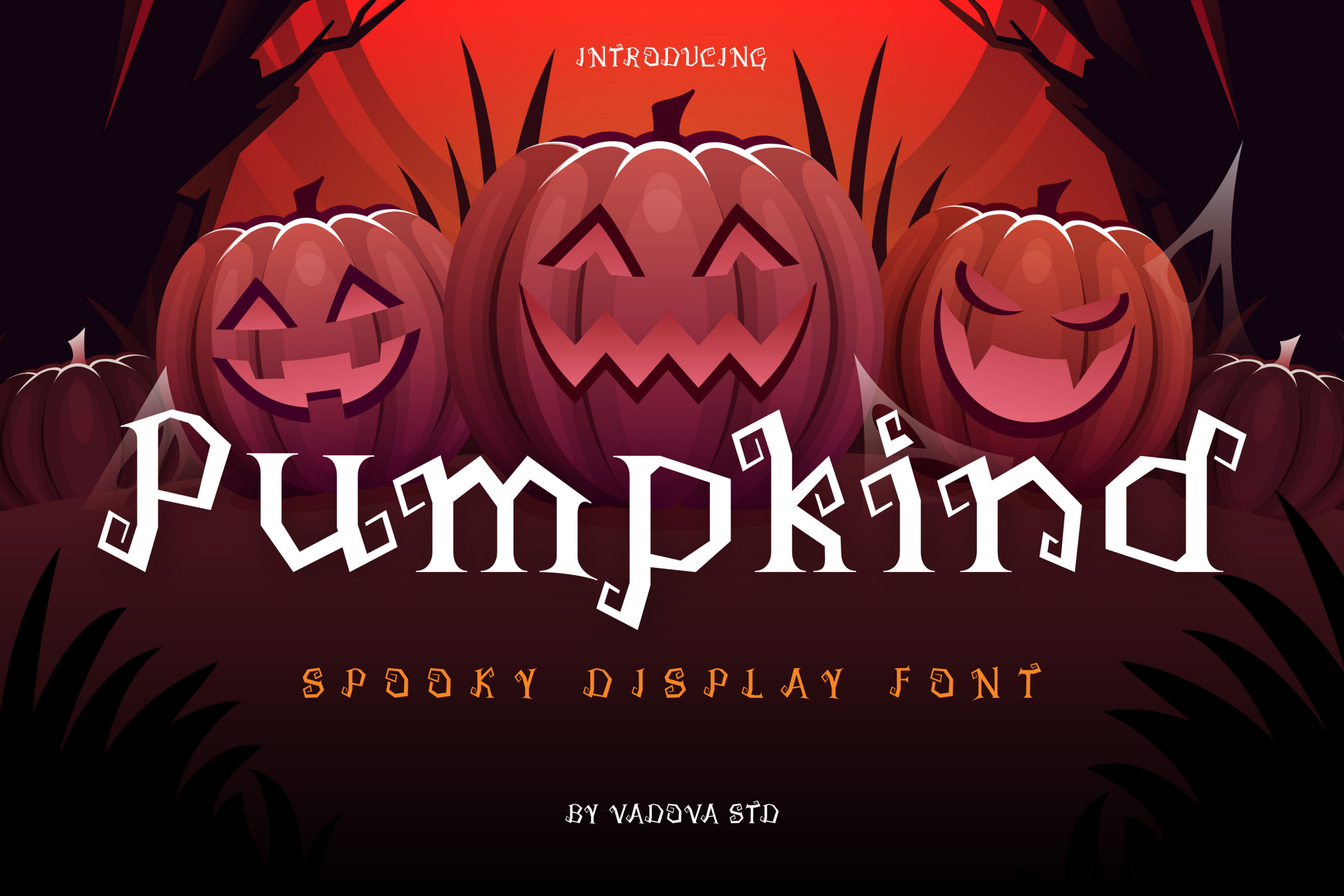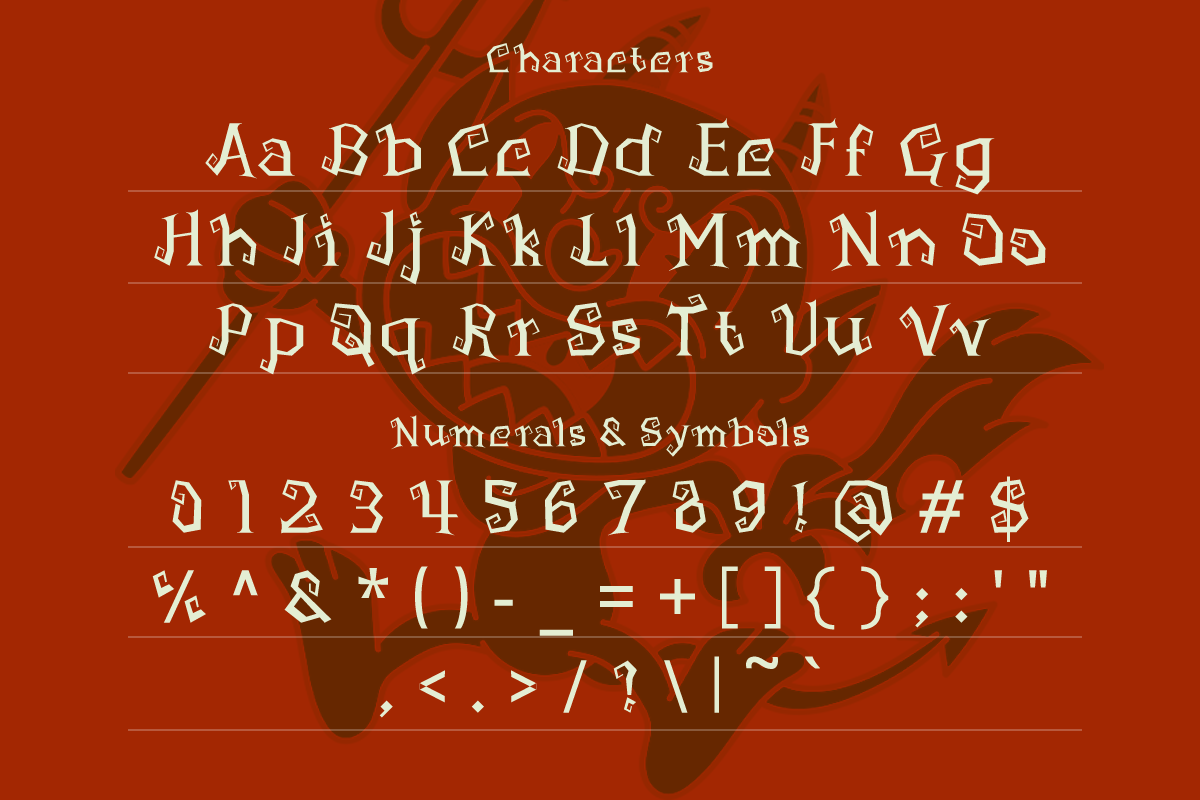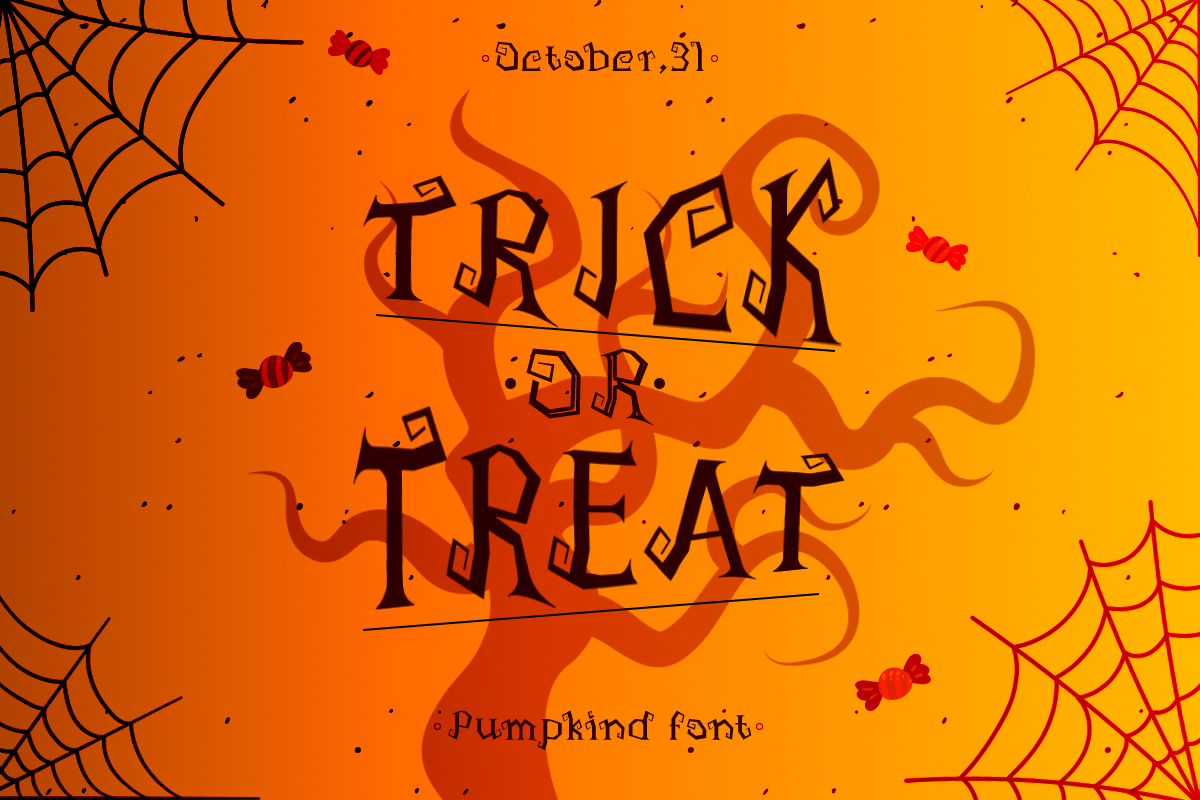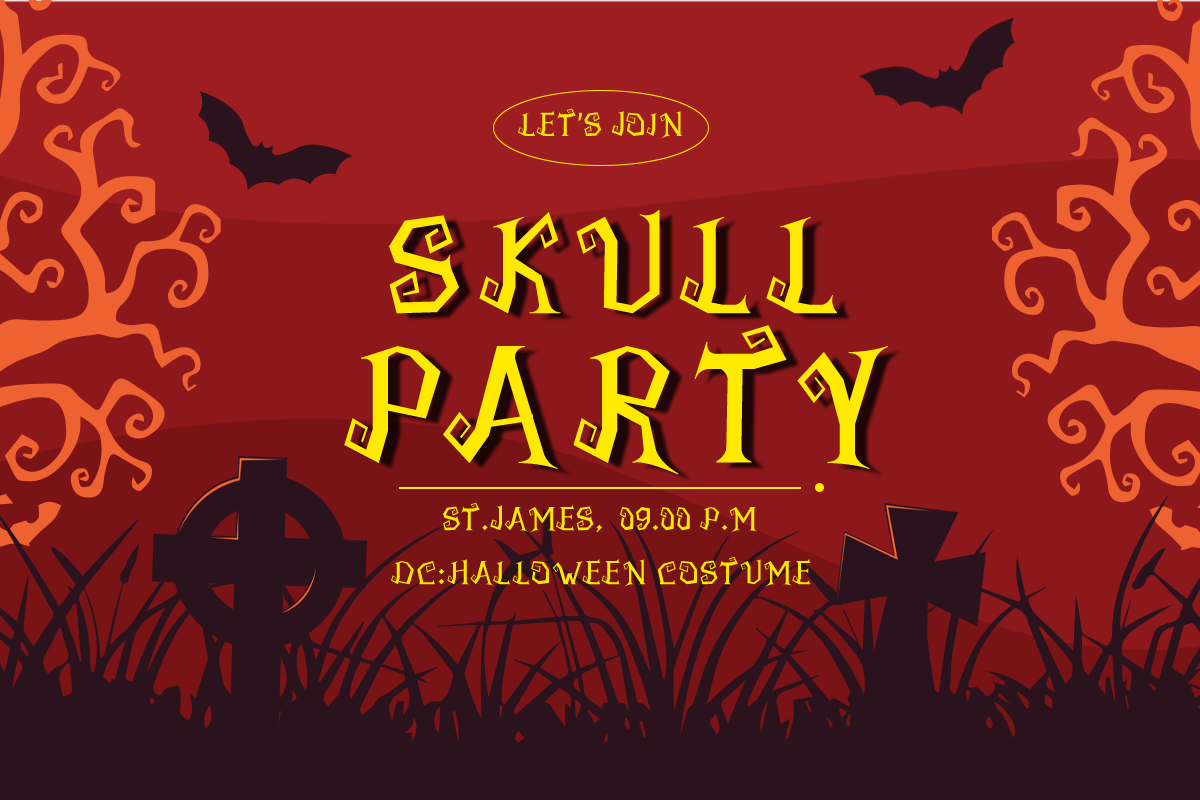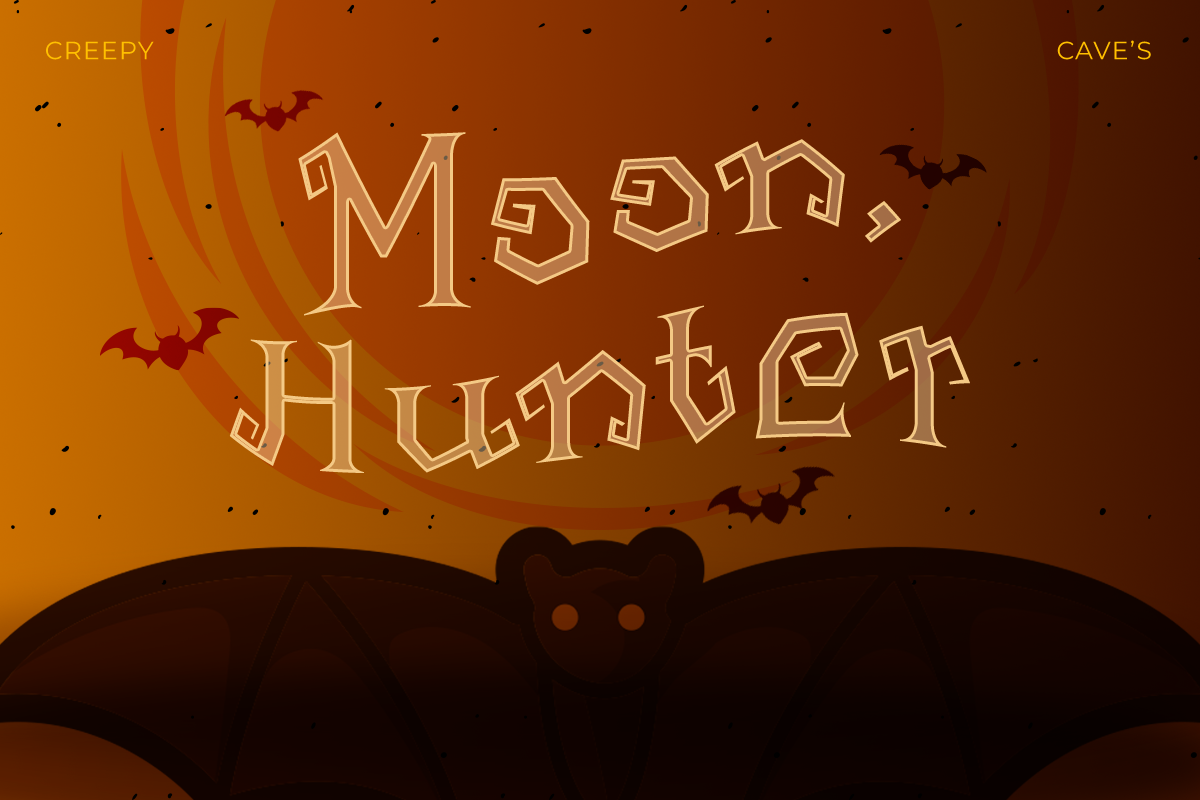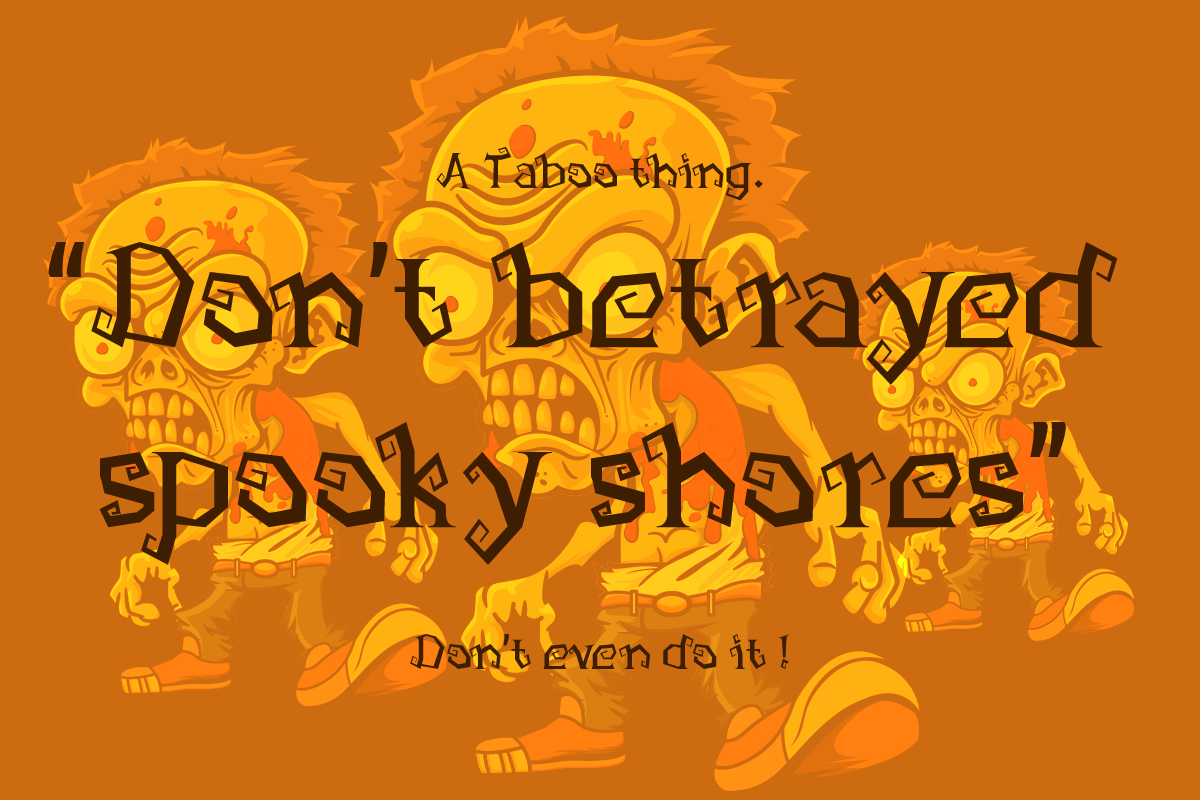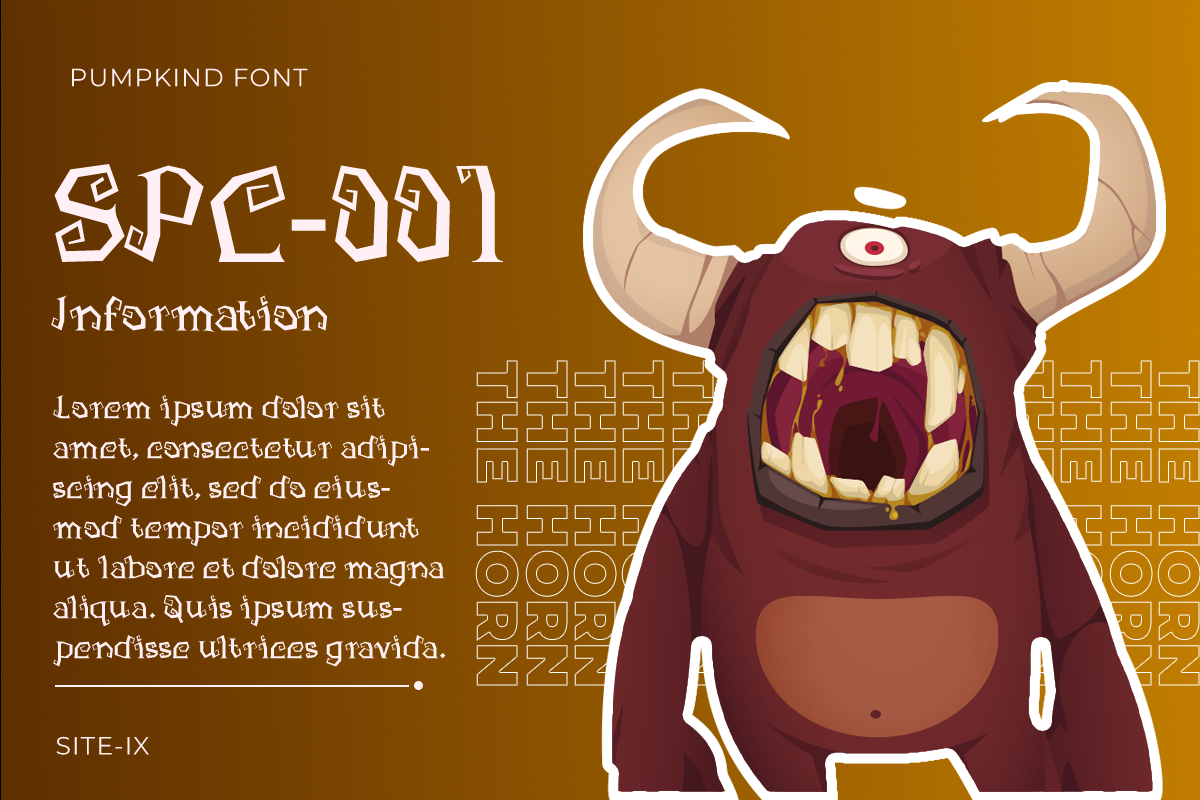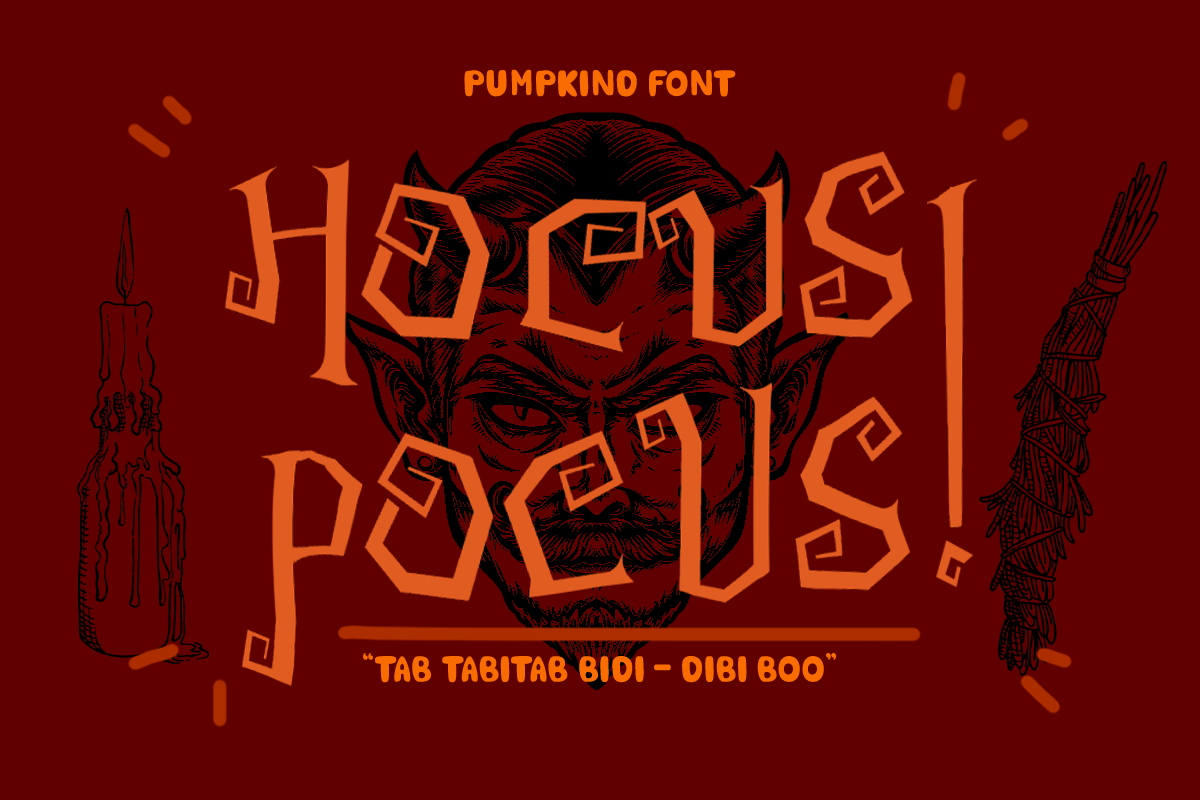
Pumpkind Spooky Halloween Font
Pumpkind conjures the spirit of Halloween with every eerie curve and crooked stroke a spooky display font designed to bring frightful fun to your creative projects. With its twisted stems, haunted forms, and playful horror vibe, Pumpkind is the perfect blend of creepy charm and bold readability. Whether you're designing Halloween posters, party invitations, eerie merchandise, or spooky social posts, this font turns every word into a spine-chilling statement.
Inspired by ghost stories, pumpkin patches, trick-or-treat nights, and vintage monster flicks, Pumpkind blends handwritten imperfection with cartoonish dread. Each letter is warped and wicked, with subtle irregularities that evoke mischief and movement. Its bold, spooky display style makes it ideal for seasonal branding, horror events, costume parties, kids' Halloween books, eerie packaging, or any design that needs a pinch of frightful flair.
From haunted houses to creepy candy labels, Pumpkind casts a long shadow over generic fonts. Its energetic, stylized glyphs give your designs that instantly recognizable Halloween feel.
- Whimsical horror-inspired lettering with quirky, twisted strokes and playful irregularity
- Perfect for spooky themes — Halloween posters, haunted invites, eerie merch, and more
- Display-style structure for maximum visual impact in large sizes
- Handcrafted feel with fun, cartoonish imperfection and haunted energy
- Multilingual support for global spooky vibes
- Ideal for digital and print — perfect for event graphics, posters, websites, labels
- Strong character presence for titles and logos
- Designed for Halloween, parties, horror, and seasonal branding
Relevance and Use Cases October-themed events, YouTube thumbnails, gothic apparel, or digital games needing a ghostly aesthetic and with multi-language support and flexible file formats, it plays nice with all your favorite tools like Adobe, Figma, and Canva.